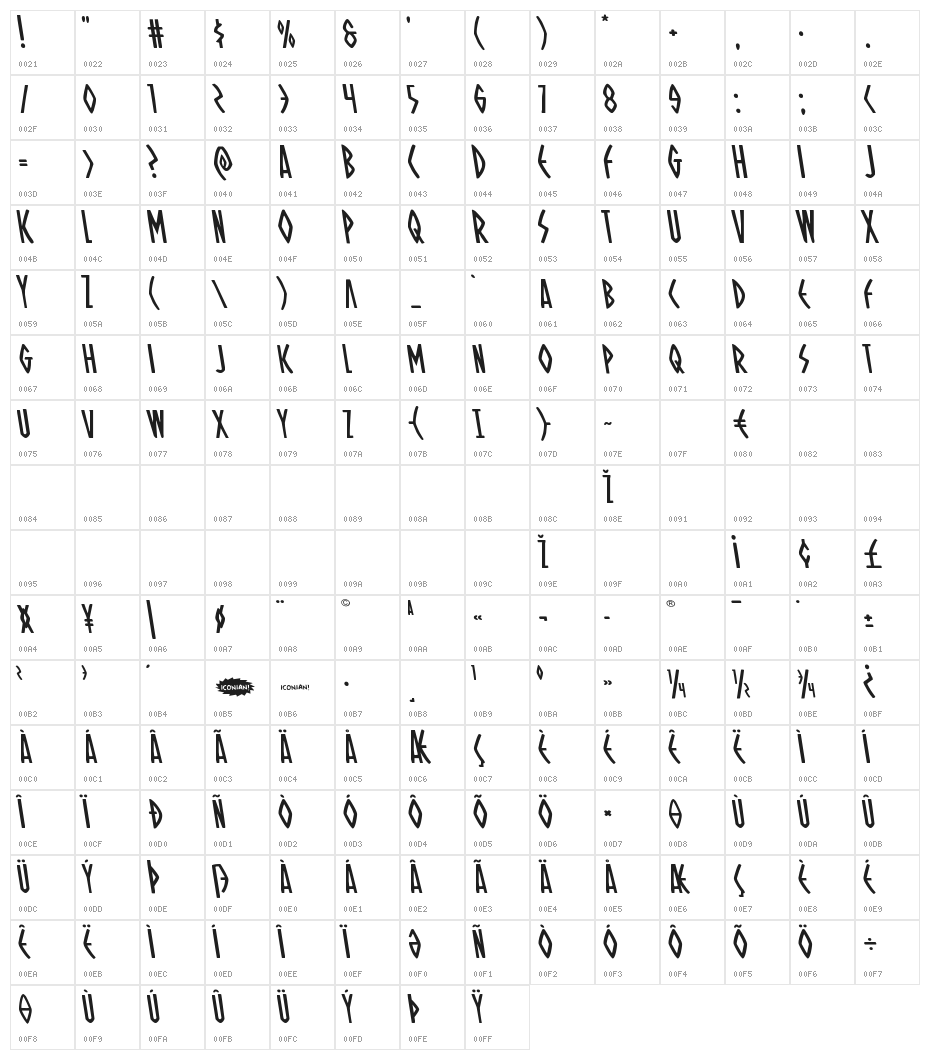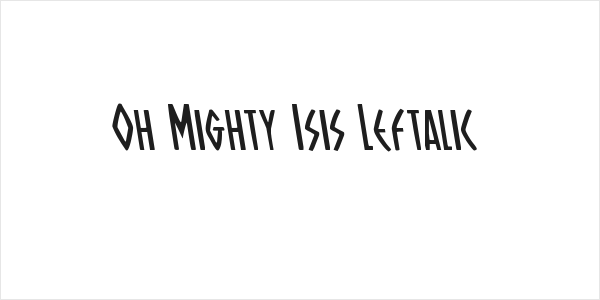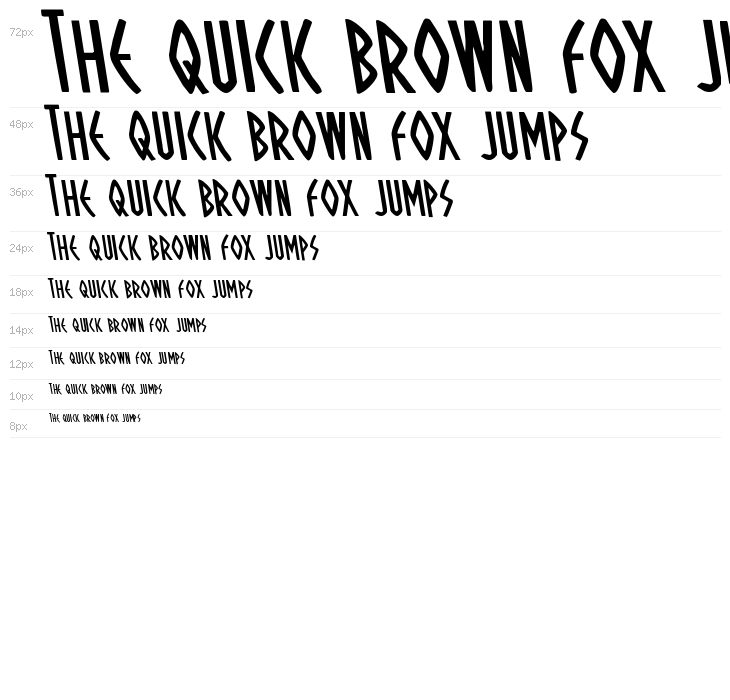
Oh Mighty Isis Leftalic Font
Oh Mighty Isis Leftalic Description
This font features a bold and dynamic style with a distinct leftward slant, giving it a unique and energetic appearance. The characters are tall and narrow, with sharp angles and a slightly condensed form. The uppercase and lowercase letters maintain a consistent style, with the lowercase mirroring the uppercase in form but smaller in size. Numbers and special characters are designed to match the overall aesthetic, ensuring a cohesive look across all text. The font's boldness and slant make it particularly eye-catching, suitable for projects that require a strong visual impact.
| Proposed Projects | Ideal for posters, headlines, branding, and any design needing a bold, dynamic look. |